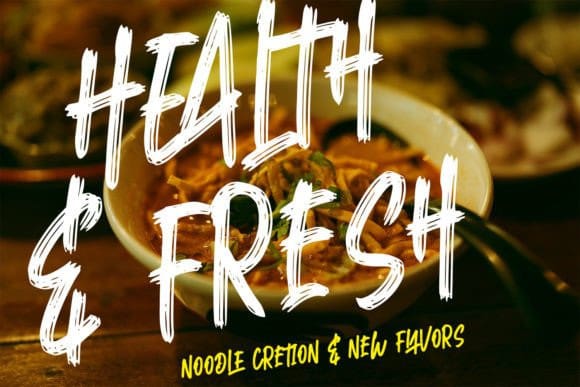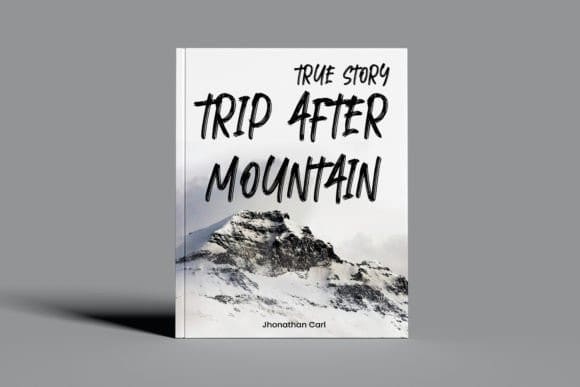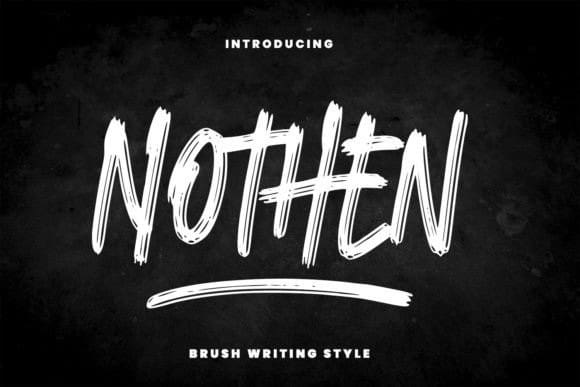
Nothen Brush Font
Nothen Brush Font, is a cool and modern handwritten brush font. This font is neatly crafted and highly detailed. Whatever the topic, this font will be a wonderful asset to your font library, as it has the potential to enhance any creation.